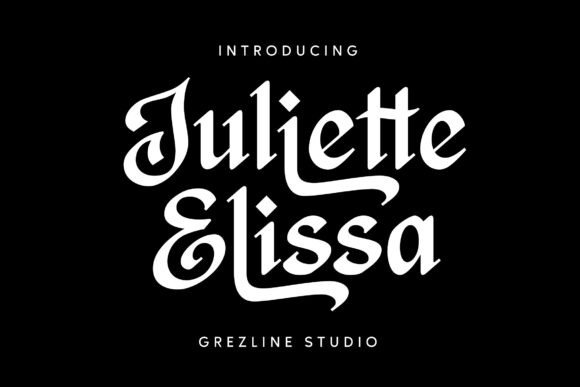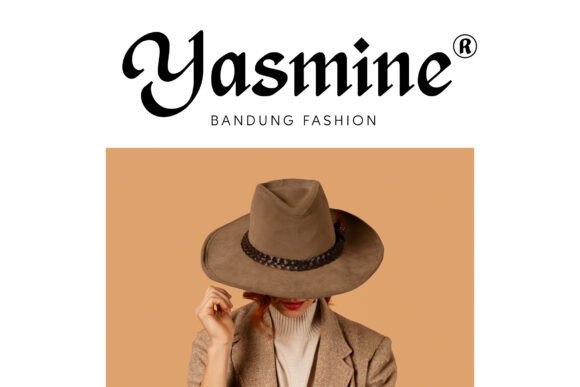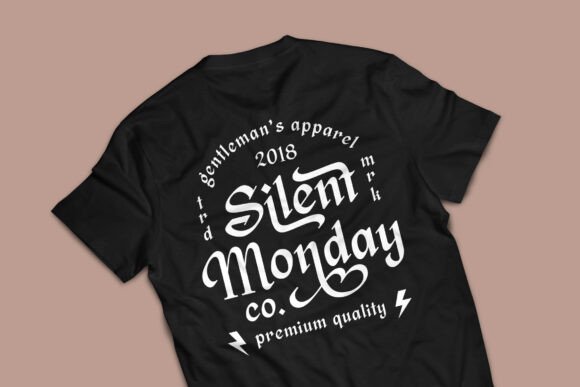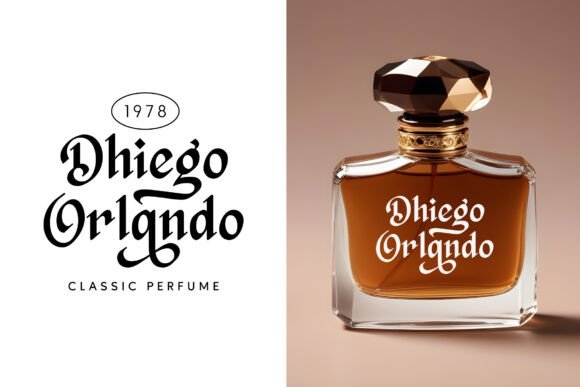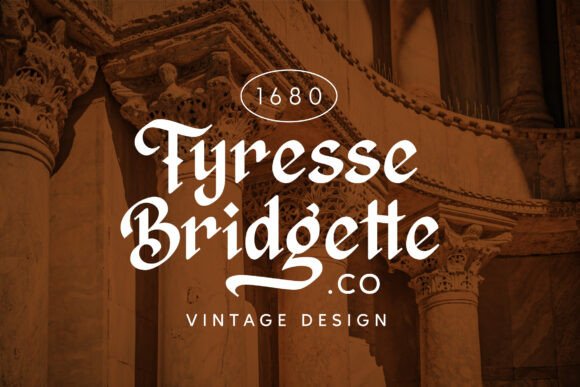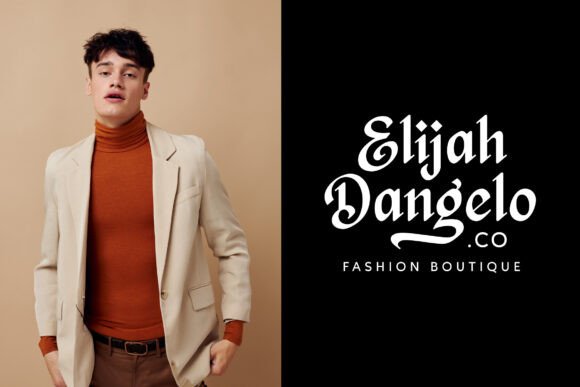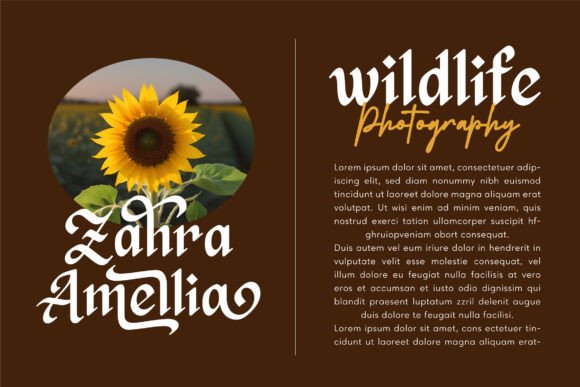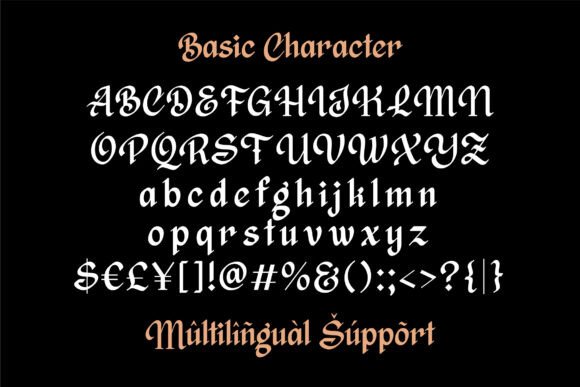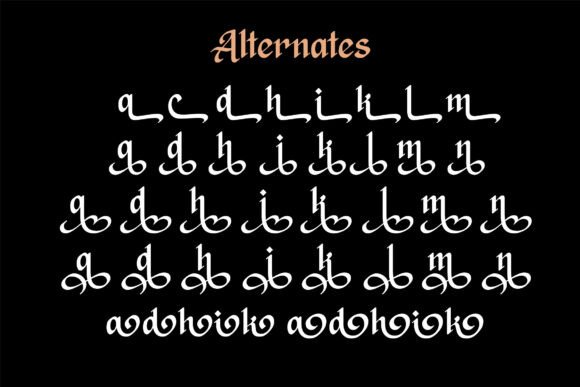
Juliette Elissa Font
Juliette Elissa is a blackletter font with classic appearance and elegance charms. You can use this font to make a vintage logo for branding, typography design, magazine or book cover, website header, product packaging, t-shirt design and many more.
With its unique appearance, Juliette Elissa brings a touch of creativity to your designs.